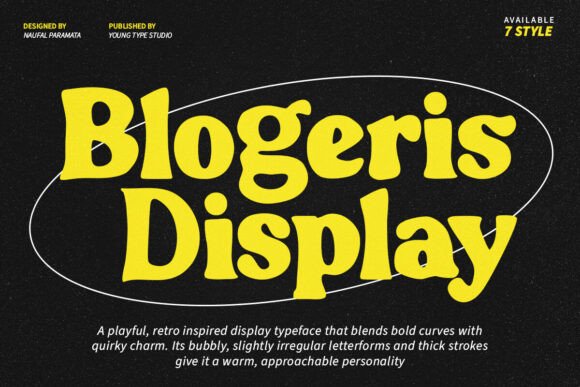
Introducing Blogeris Display Font: A Playful, Retro-Inspired Typeface
In the world of typography, fonts play a crucial role in conveying the tone and personality of a design. Among the numerous typefaces available, Blogeris Display stands out as a unique and captivating font that combines bold curves with a quirky charm. In this article, we’ll delve into the features, benefits, and uses of Blogeris Display, a playful, retro-inspired display typeface that’s perfect for adding warmth and personality to any design.
The Design and Characteristics of Blogeris Display
Blogeris Display is a carefully crafted font that boasts a distinctive, handcrafted feel. Its letterforms are bubbly and slightly irregular, giving the font an organic, human touch that’s hard to resist. The font’s bold curves and thick strokes create a sense of playfulness, while its unique rhythm adds a touch of sophistication.
One of the standout features of Blogeris Display is its quirky charm. The font’s irregularities and imperfections give it a relatable, friendly appearance that’s perfect for designs that aim to be fun, expressive, and visually engaging. Whether you’re creating a headline, poster, or branding materials, Blogeris Display is sure to grab attention and leave a lasting impression.
The Benefits of Using Blogeris Display
So, why choose Blogeris Display for your design projects? Here are just a few benefits of using this versatile and charming font:
- Unique and Memorable: Blogeris Display’s distinctive design ensures that your text stands out from the crowd, making it perfect for headlines, titles, and promotional materials.
- Playful and Expressive: The font’s quirky charm and friendly appearance make it ideal for designs that aim to be fun, creative, and engaging.
- Handcrafted Feel: Blogeris Display’s slightly irregular letterforms give it a human touch, adding warmth and personality to any design.
- Versatile: The font is suitable for a wide range of design projects, including headlines, posters, branding, packaging, and more.
Uses of Blogeris Display
Blogeris Display is a versatile font that can be used in a variety of design projects. Here are some ideas to get you started:
- Headlines and Titles: Use Blogeris Display to create eye-catching headlines and titles that grab attention and set the tone for your content.
- Posters and Flyers: The font’s bold curves and quirky charm make it perfect for posters, flyers, and other promotional materials.
- Branding and Logo Design: Blogeris Display can be used to create unique and memorable logos, adding a touch of personality to your brand.
- Packaging Design: The font’s playful and expressive nature makes it suitable for packaging design, adding a touch of whimsy to your product labels.
Tips for Using Blogeris Display Effectively
To get the most out of Blogeris Display, here are some tips to keep in mind:
- Use it Sparingly: Blogeris Display is a bold font, so use it sparingly to avoid overwhelming your design.
- Experiment with Colors: The font’s playful nature makes it perfect for experimenting with bright, bold colors that add to its quirky charm.
- Pair it with Other Fonts: Blogeris Display can be paired with other fonts to create a unique and visually appealing typography scheme.
- Pay Attention to Kerning: As with any font, pay attention to kerning to ensure that your text looks professional and polished.
The Future of Blogeris Display
As a relatively new font, Blogeris Display is quickly gaining popularity among designers and typographers. Its unique design and versatility make it an exciting addition to the world of typography.
As designers continue to experiment with Blogeris Display, we can expect to see innovative and creative uses of the font in various design projects. Whether you’re a seasoned designer or just starting out, Blogeris Display is definitely worth adding to your font collection.
In conclusion, Blogeris Display is a playful, retro-inspired display typeface that adds warmth and personality to any design. Its bold curves, quirky charm, and handcrafted feel make it perfect for designs that aim to be fun, expressive, and visually engaging.
Whether you’re creating headlines, posters, branding materials, or packaging design, Blogeris Display is a versatile font that’s sure to grab attention and leave a lasting impression. So why not give it a try and see how it can elevate your design projects?